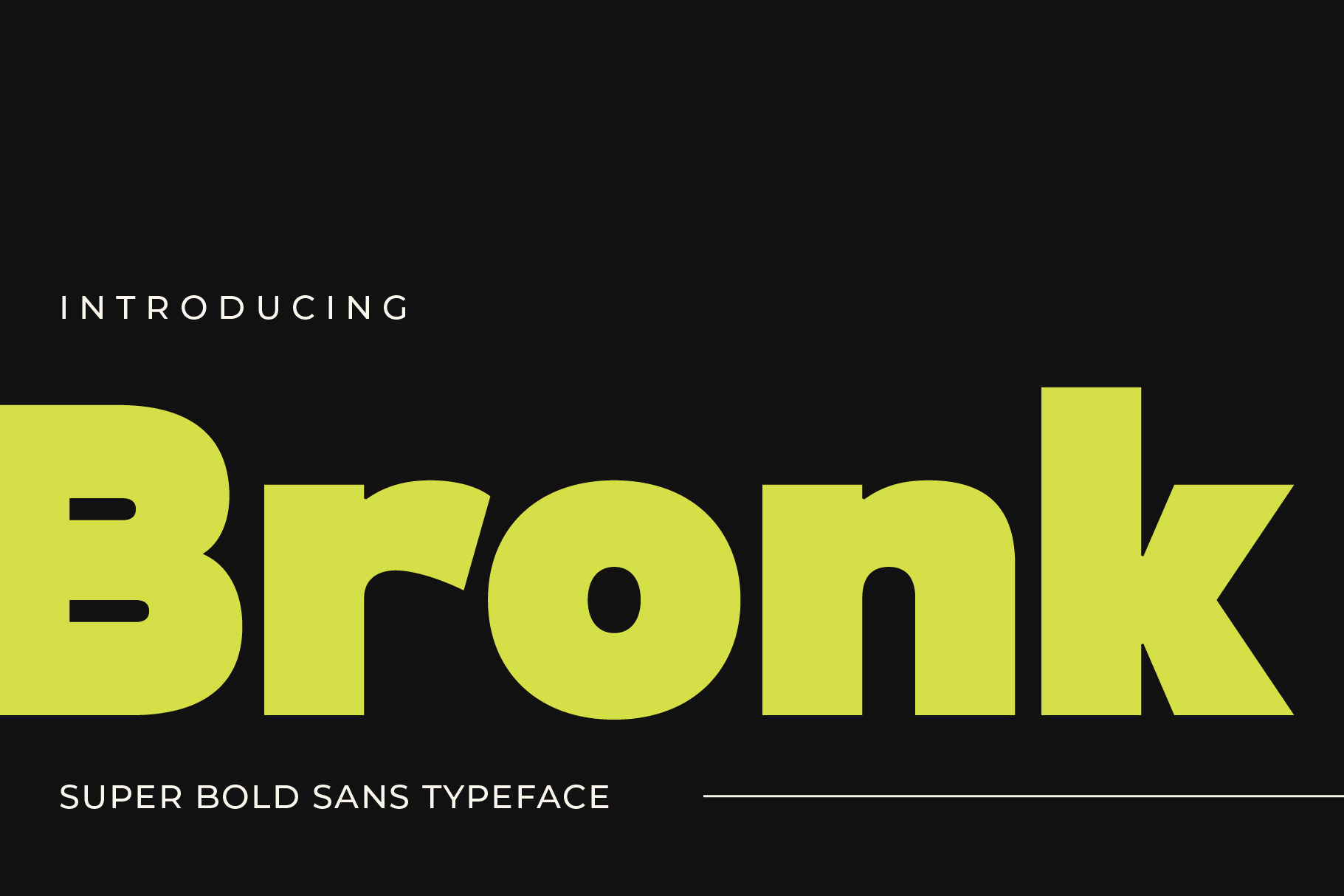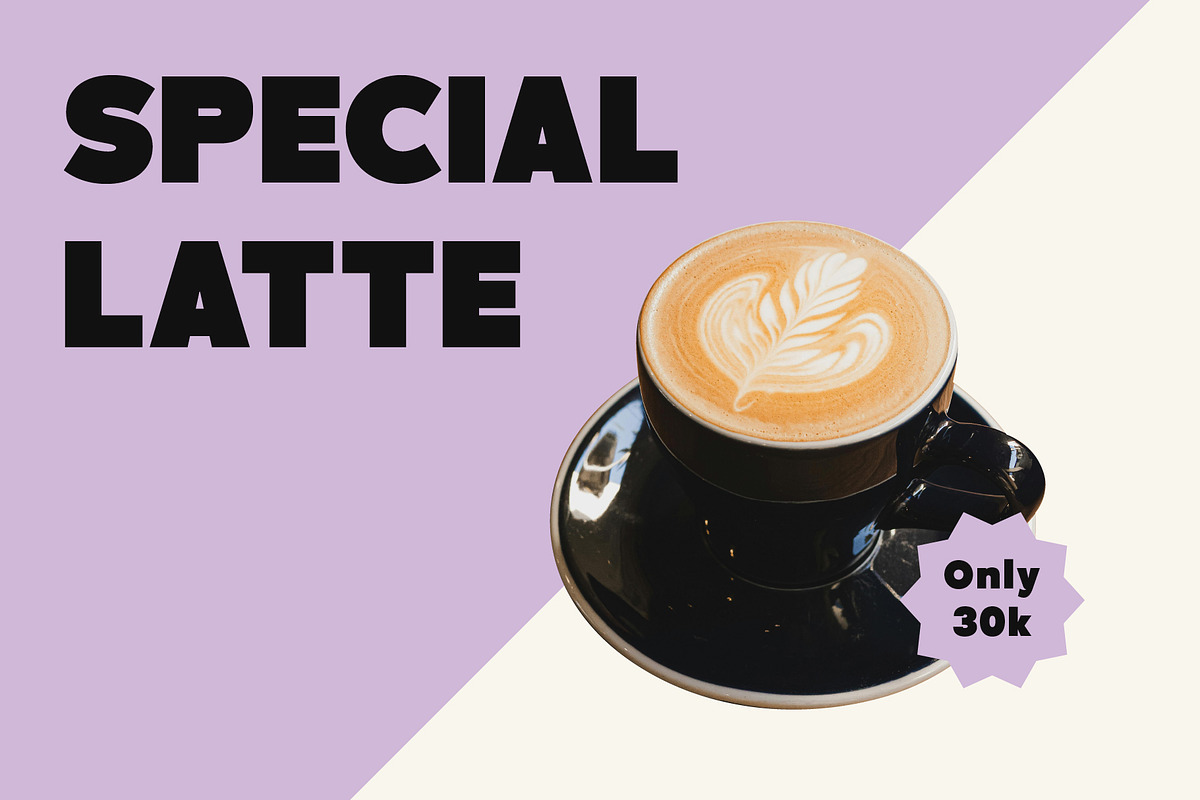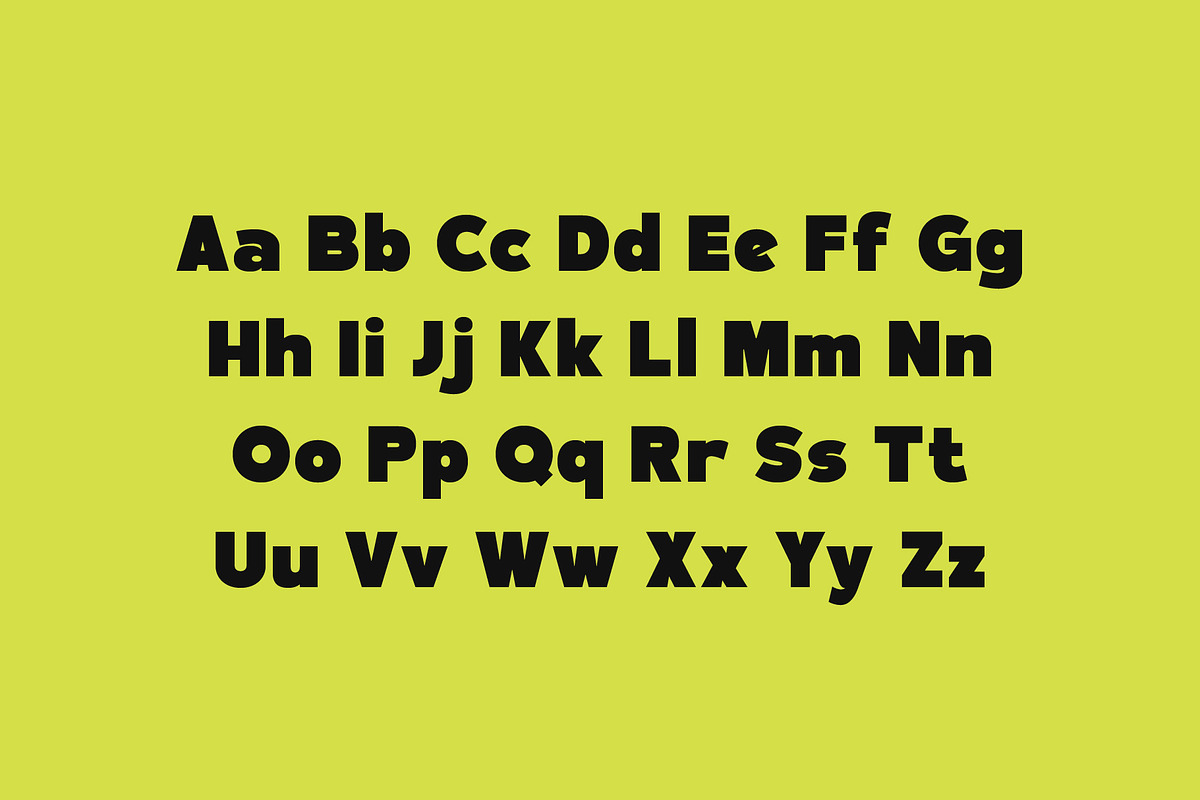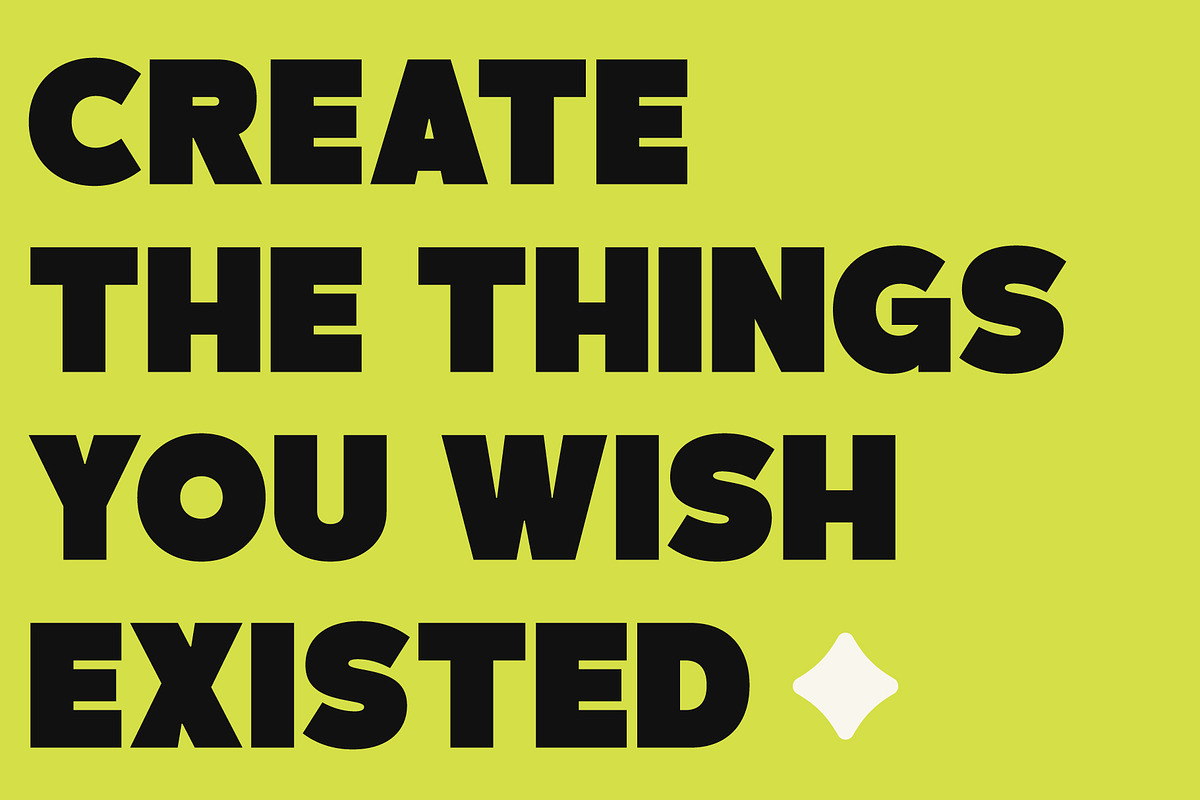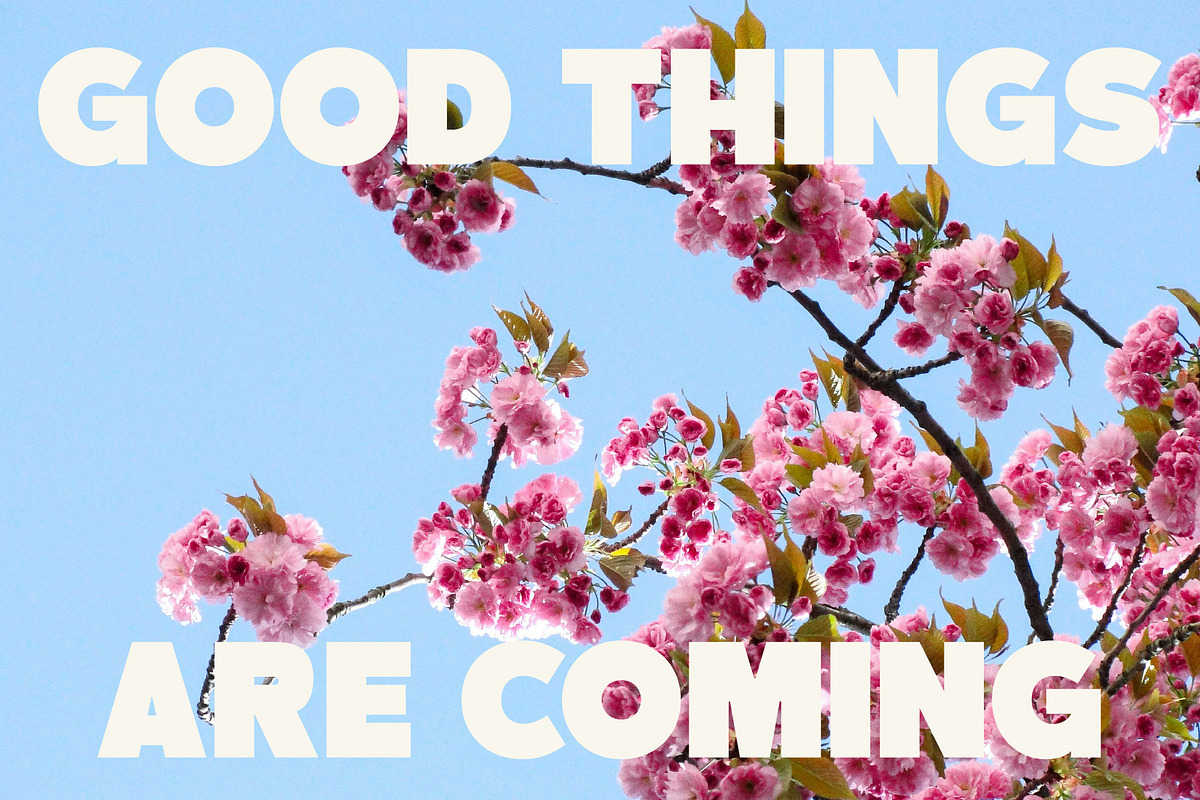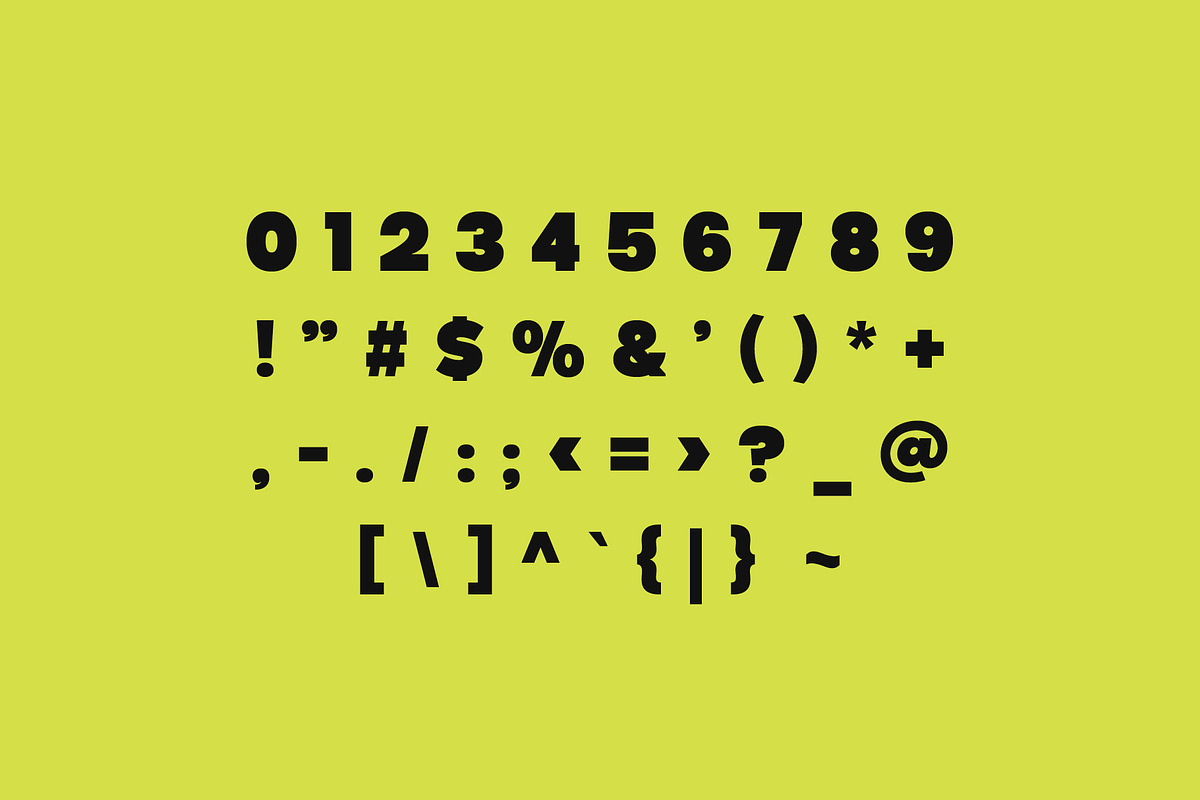
PGR Bronk - Bold Font
Bronk is a heavy sans serif font with a chunky, solid build. Its thick forms create a powerful presence, perfect for grabbing attention and holding it.
Use Bronk when your design needs to stand out. It’s ideal for bold headlines, striking logos, strong packaging, or eye-catching social posts. Wherever you use it, Bronk makes your message loud and clear.
The font includes uppercase and lowercase letters, numbers, and essential symbols. So, it’s ready to handle both creative and practical design needs.
Moreover, Bronk’s clean shapes and bold weight make it easy to pair with other fonts. Whether you want contrast or consistency, Bronk fits right in.